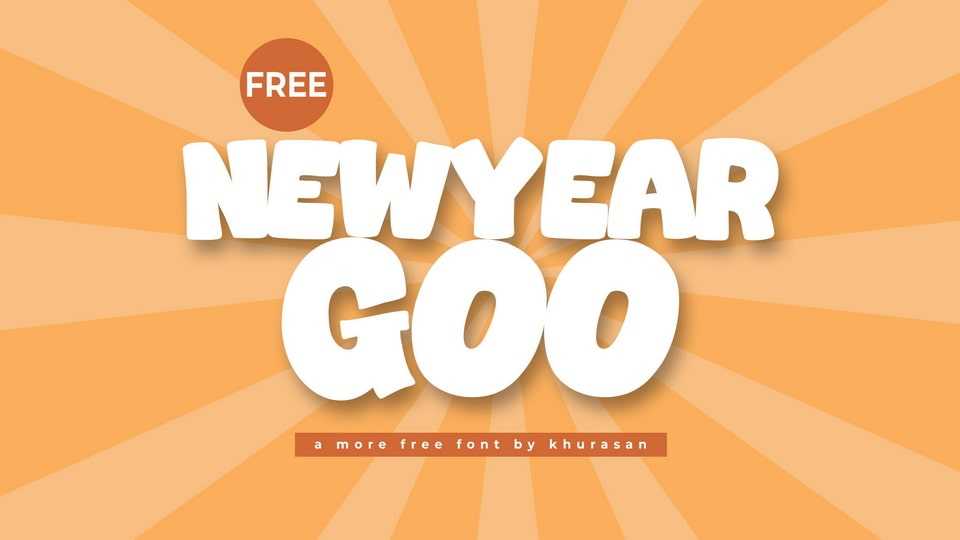
Download Newyear Goo font, a bold and cheerful hand-crafted cartoon typeface radiating positivity and charm, perfect for bringing smiles to any project.